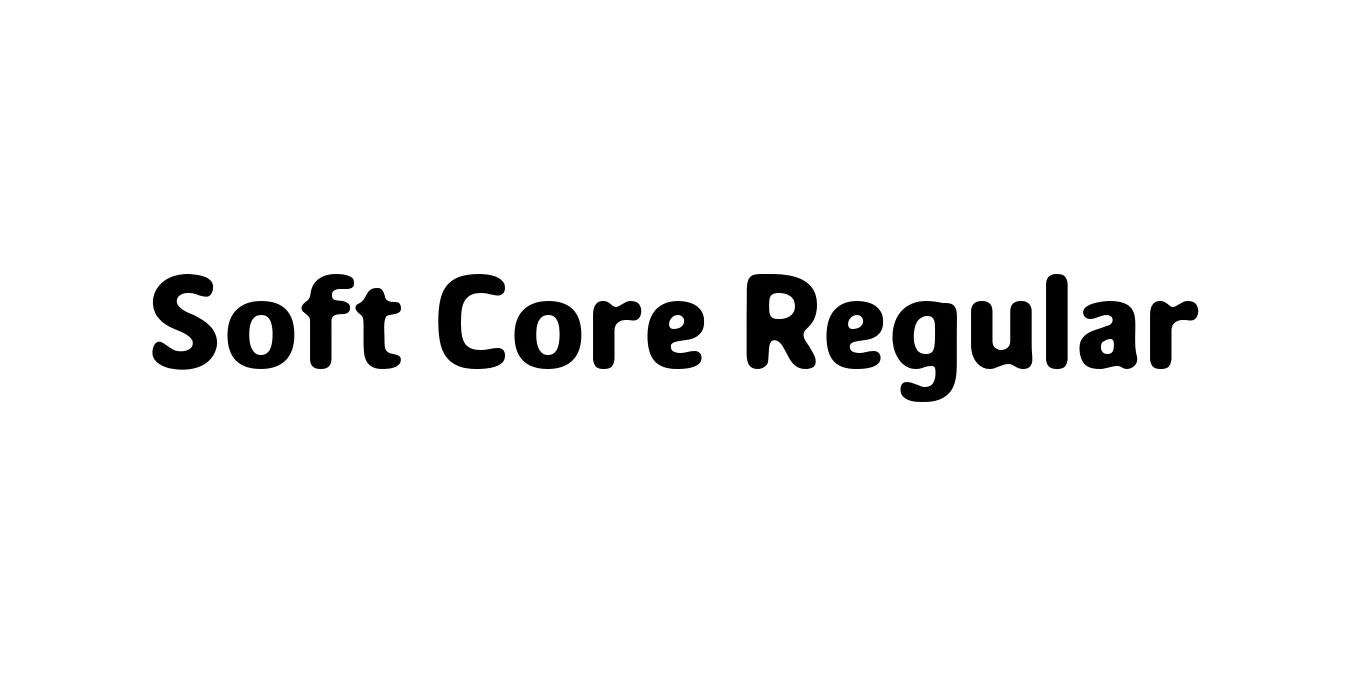
Soft Core Regular
Designed by Clement Nicolle (Stereo Type)
| Category | Display / Rounded Sans Serif |
| Designer | Clement Nicolle (Stereo Type) |
Soft Core Regular is a contemporary display typeface designed to evoke a sense of warmth, fluidity, and approachability. Created by the renowned foundry Stereo Type, this font family departs from the rigid constraints of traditional sans-serif typography, utilizing rounded terminals and pillowy structures to create a tactile, organic aesthetic. Its design philosophy centers on a "soft-touch" visual language that feels both modern and nostalgic, making it a versatile tool for designers looking to inject personality into their work.
The Regular weight of Soft Core is particularly praised for its balanced proportions and exceptional legibility despite its unconventional shapes. It thrives in environments where a friendly and inviting tone is paramount, such as lifestyle branding, editorial design, and interactive web interfaces. Its unique ability to remain high-impact while maintaining a gentle presence has made it a staple in modern creative kits for social media campaigns and playful identity systems.
Soft Core Regular Best Uses
Creating inviting and approachable visual identities for modern startups.
Designing high-engagement graphics that require a friendly and bold personality.
Crafting attention-grabbing titles for magazines and digital headers.
Ideal for lifestyle or children's products that benefit from soft, organic shapes.